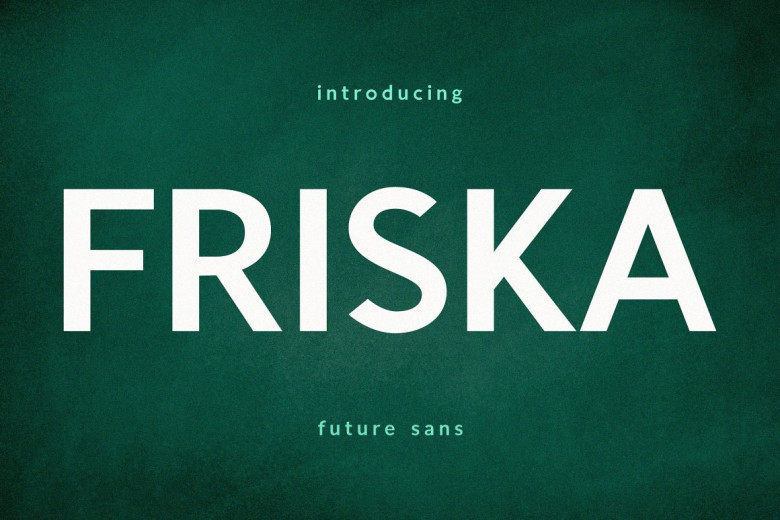
Friska Font
Meet the new Friska Modern Sans-Serif. It’s classy, modern and sans. This font is modern and elegant and works great with web pages, logos, journals, social media. This font this font It’s matched and ready to be used together for your next design! For all of you that need a touch of elegance, stylish, classy chic and modernity for your designs – this font was made just for you!
Friska Sans Serif Font